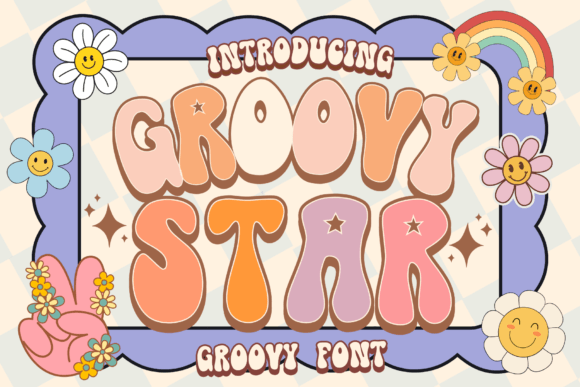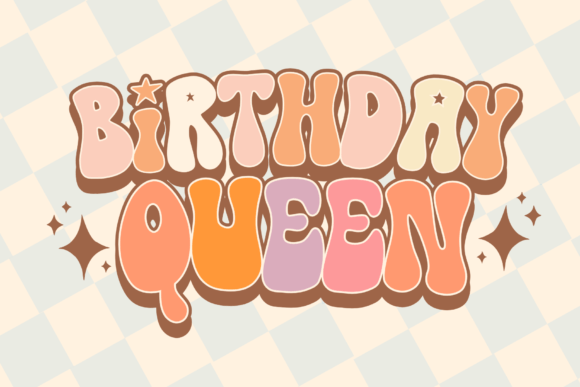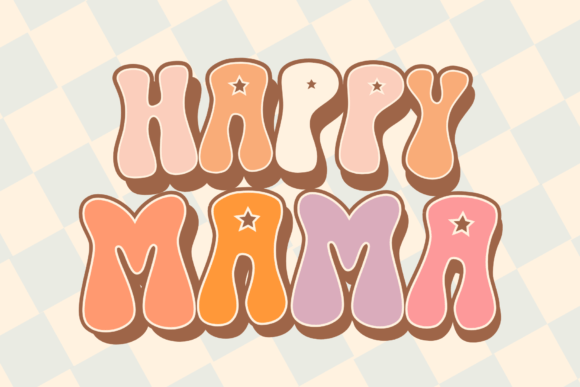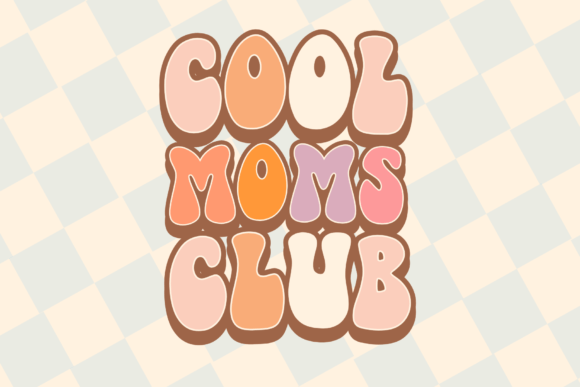
Groovy Star Font: A Playful Retro Font for Cute Branding & DIY Projects
About the Groovy Star Font
Let us introduce you to Groovy Star Font, where timeless design meets modern craftsmanship. Groovy Star is a stylish retro groovy font. Ideal for all your hippie-inspired designs, It embodies playfulness and authenticity and is the perfect choice for all your favorite projects, or even for blog posts, logos, branding, ads, invitations, greeting cards, planners, photo albums, decorations, and much more. Add it to any of your designs, and enjoy the results!
Groovy Star’s playful, retro style shines in headlines, short text blocks, and branding applications where a touch of vintage fun is desired. It works particularly well for posters, packaging for novelty items, and social media graphics. However, its less-than-optimal x-height makes it unsuitable for body text or UI elements requiring high readability.
Consider pairing Groovy Star with a clean sans-serif like Open Sans for a balanced contrast, or a more geometric sans-serif for a modern twist. A simple serif like Lora can provide a sophisticated counterpoint, grounding the retro energy. Avoid pairing it with other highly decorative fonts to prevent visual clutter.
The font’s overall personality is undeniably cheerful and nostalgic, lending itself to brands focused on fun, youthfulness, or a retro aesthetic. It evokes a sense of lightheartedness and approachability.
Groovy Star Font Usage Examples
Groovy Star Font Example